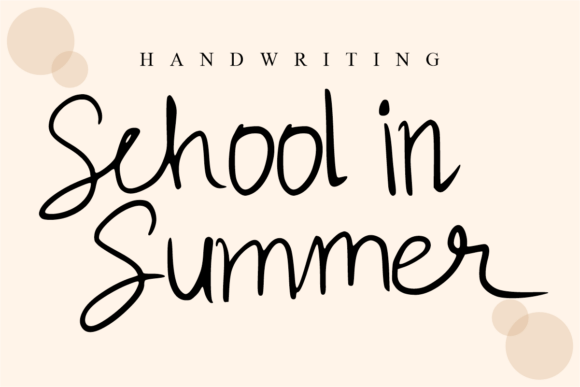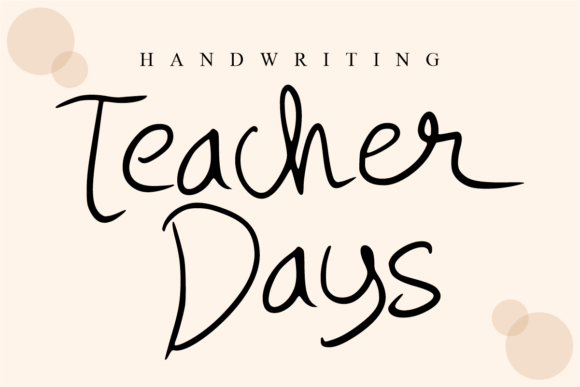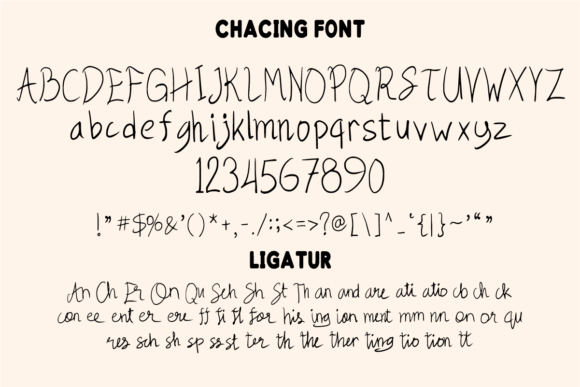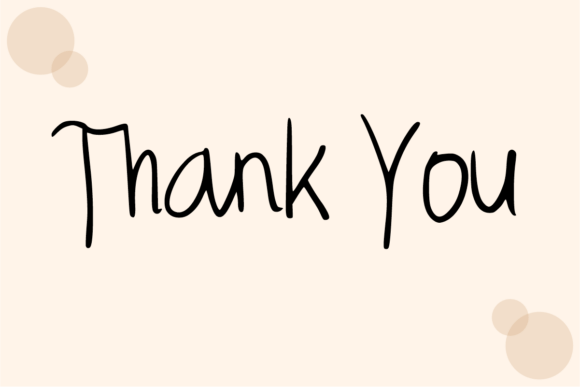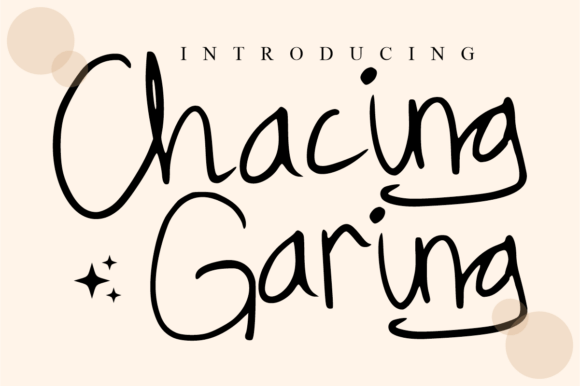
✨ Chacing – Authentic Signature Script Font ✨
Are you looking for a font that captures the essence of natural, effortless handwriting? Look no further than Chacing, a beautiful and elegant script font that brings a personal and sophisticated touch to any project. With its fluid, expressive style and authentic, “hand-drawn” aesthetic, Chacing is the perfect choice for designers and crafters who want to add a touch of artistic soul to their work.
What is Chacing Font?
Chacing is a meticulously designed script font that mimics the look of real ink on paper. Its flowing and natural strokes are perfect for creating high-end branding, trendy social media graphics, wedding invitations, and more. The font features a unique and elegant style that sets it apart from other script fonts, making it ideal for designers who want to add a touch of sophistication to their designs.
Key Features of Chacing Font
• 🖋️ Uppercase & Lowercase: Chacing features a full range of uppercase and lowercase letters, ensuring that your text will flow naturally and elegantly.
• 🔢 Numbers & Punctuation: The font includes a set of numbers and punctuation marks that match the elegant style of the letters.
• ➰ Special Ligatures: Chacing features special ligatures that create a seamless handwritten look, making your text appear more natural and fluid.
• 💖 Symbols & Multi-language Support: The font includes a range of symbols and supports multiple languages, making it perfect for designers who work with international clients.
Chacing is a versatile font that can be used for a wide range of design projects, including:
• 🕊️ Wedding Invitations & Stationery: Add a touch of elegance and sophistication to your wedding invitations and stationery with Chacing.
• 📸 Photography Watermarks & Signature Logos: Use Chacing to create beautiful watermarks and signature logos that reflect your personal style.
• 🌿 Boho & Lifestyle Branding: Chacing is perfect for boho and lifestyle brands that want to add a touch of artistic soul to their designs.
• 📱 Instagram Quotes & Aesthetic Reels: Use Chacing to create stunning Instagram quotes and aesthetic reels that showcase your creativity.
• 🎨 Digital Planning & Scrapbooking: Add a touch of elegance and sophistication to your digital planning and scrapbooking projects with Chacing.
• 👕 Minimalist Apparel & Merchandise: Use Chacing to create beautiful and elegant designs for minimalist apparel and merchandise.
Why Choose Chacing Font?
So why choose Chacing font for your design projects? Here are just a few reasons:
• Unique and Elegant Style: Chacing features a unique and elegant style that sets it apart from other script fonts.
• Authentic, “Hand-Drawn” Aesthetic: The font has an authentic, “hand-drawn” aesthetic that adds a touch of artistic soul to your designs.
In conclusion, Chacing is a beautiful and elegant script font that is perfect for designers and crafters who want to add a touch of artistic soul to their work. With its unique and elegant style, authentic, “hand-drawn” aesthetic, and versatility, Chacing is the perfect choice for a wide range of design projects. Whether you’re creating high-end branding, trendy social media graphics, wedding invitations, or digital planning projects, Chacing is sure to impress.